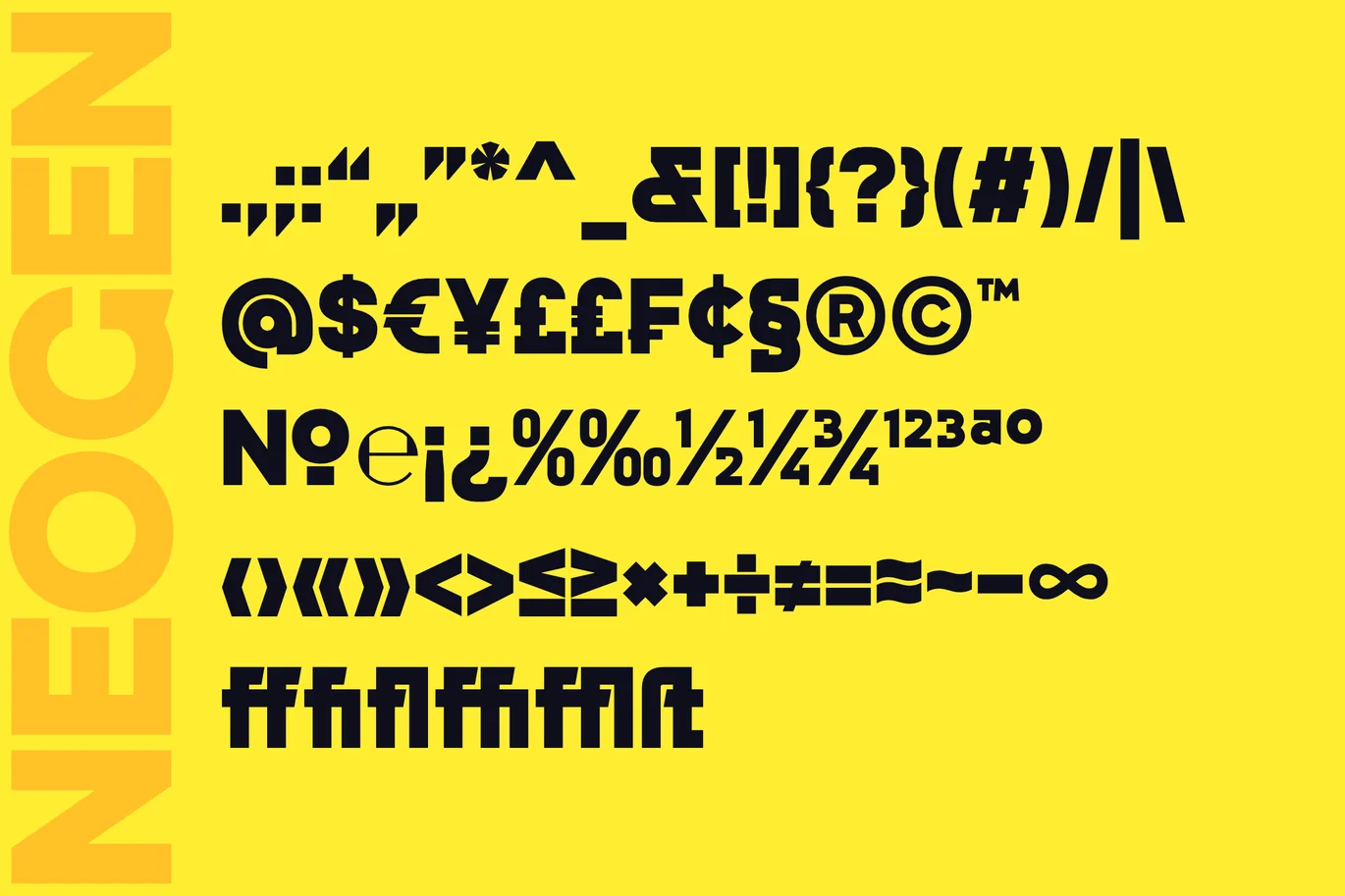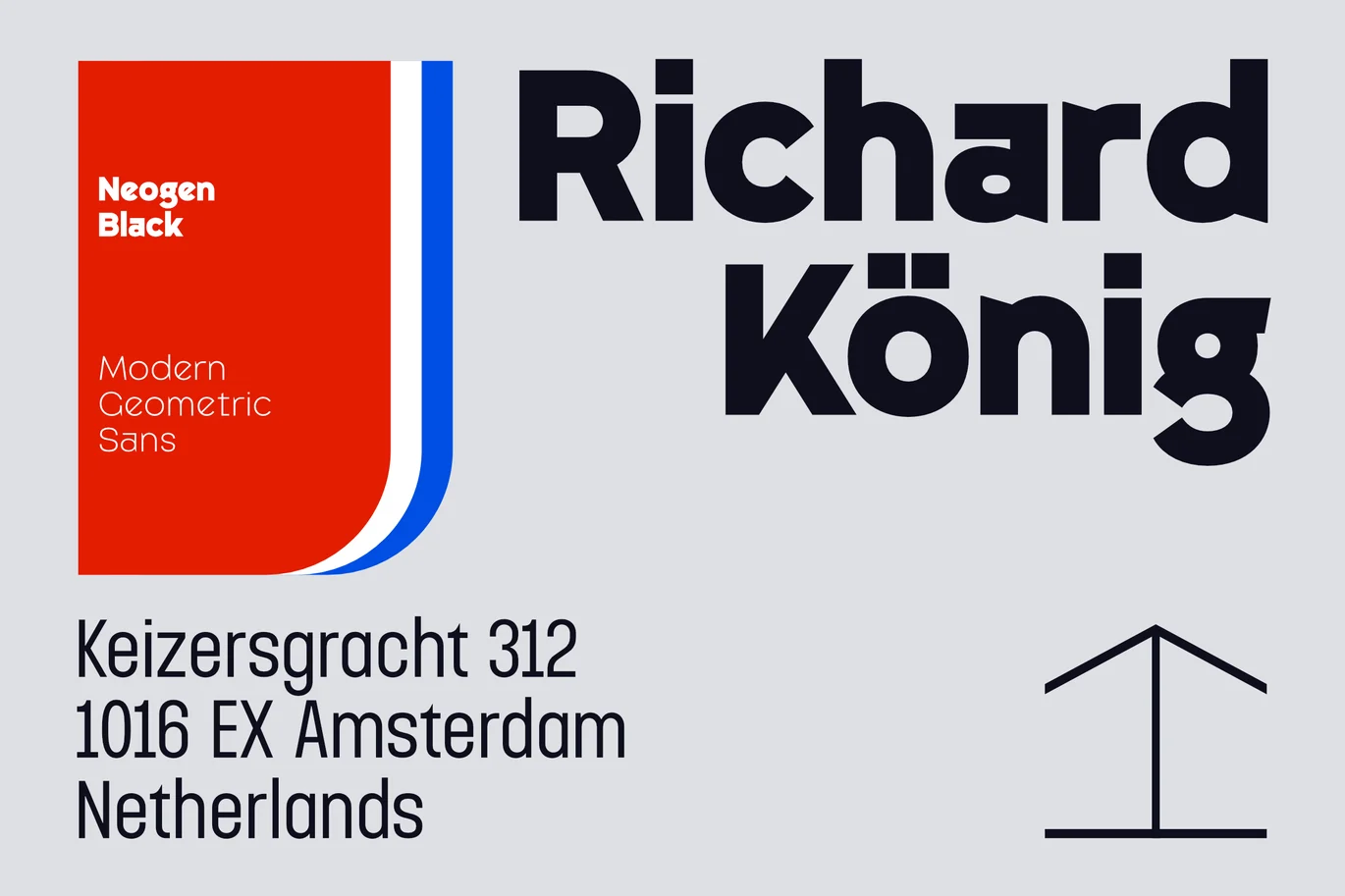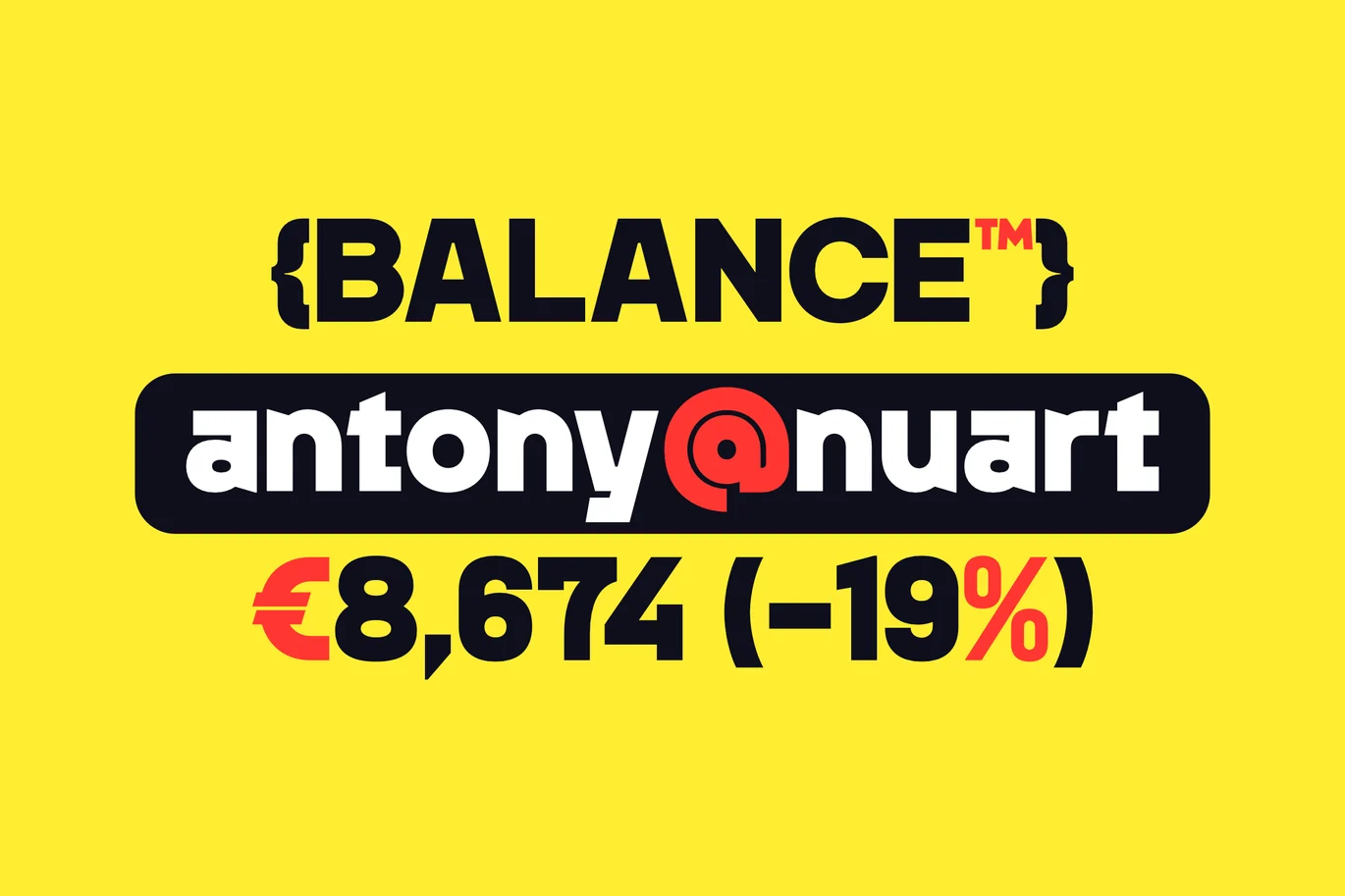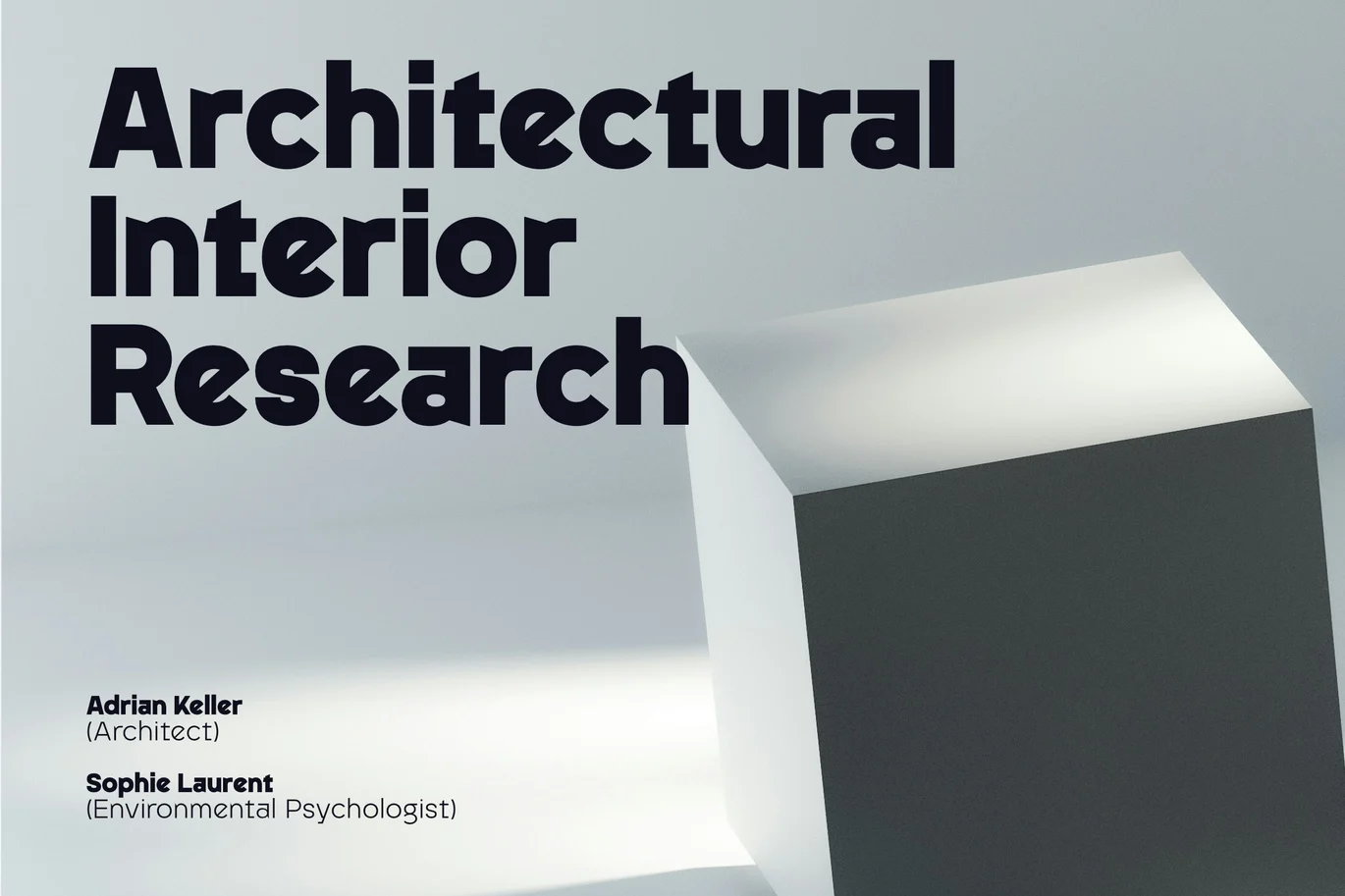
Neogen – Black Style Font
Neogen Black is a contemporary sans-serif typeface engineered for maximum impact, clarity, and modern visual strength. Built with a refined geometric structure and bold proportions, it delivers a powerful and distinctive voice for high-visibility design.
Designed to command attention, Neogen Black excels in headlines, branding, posters, and digital displays where strong presence is essential. Its solid construction and confident weight create striking contrast while maintaining precision and balance.
With sharp detailing, optimized spacing, and multilingual support, Neogen Black ensures both visual authority and professional performance. Whether used for bold statements or dominant layouts, it communicates with clarity, confidence, and contemporary appeal.